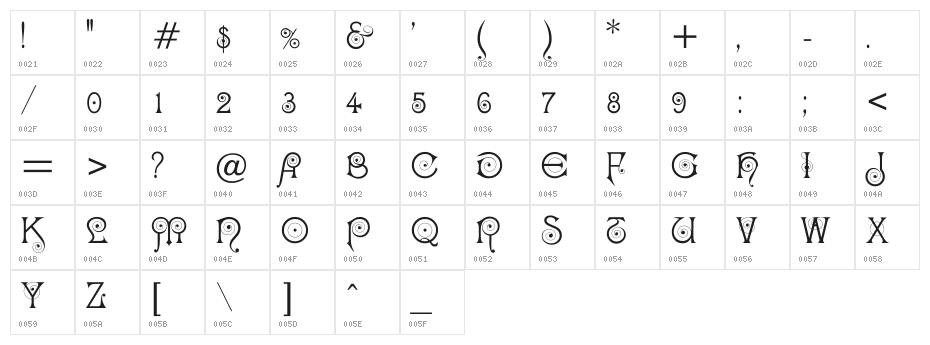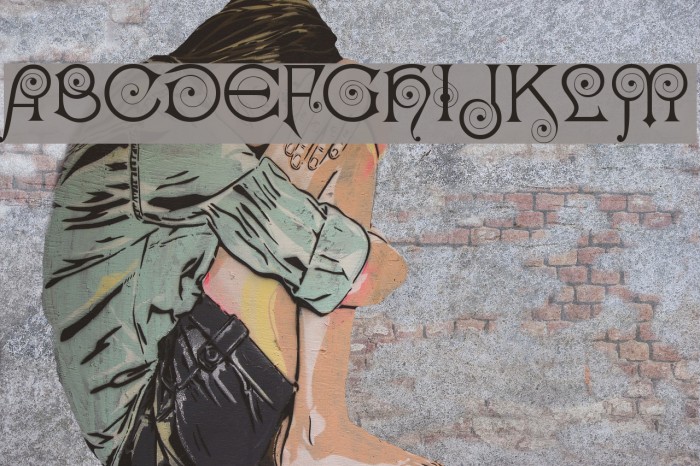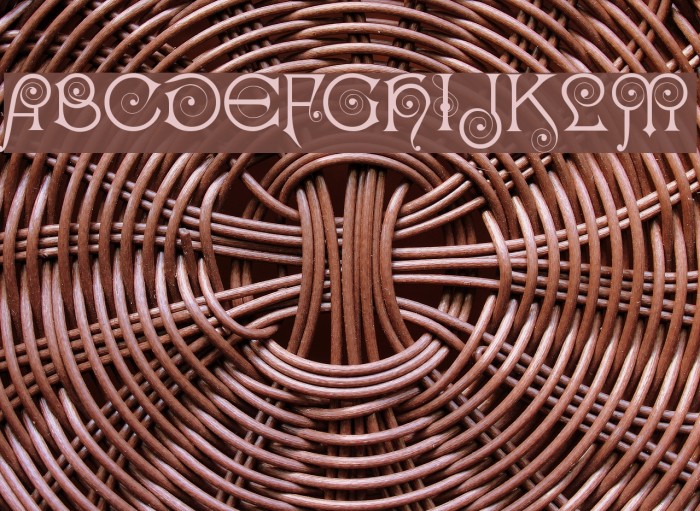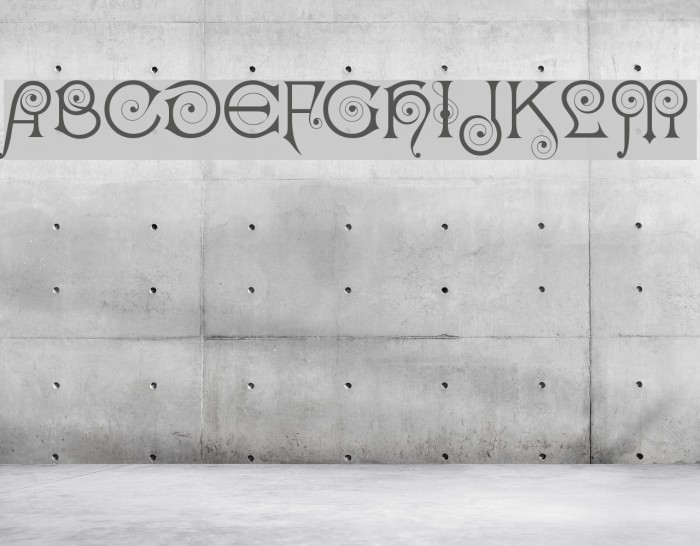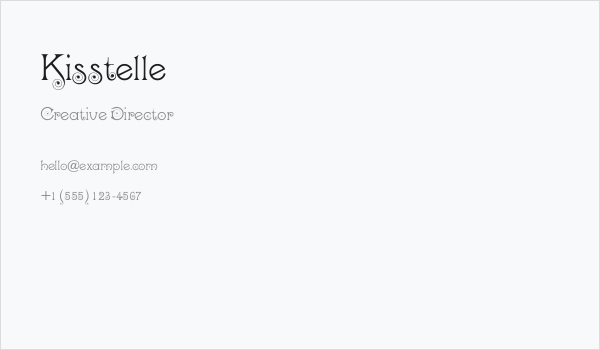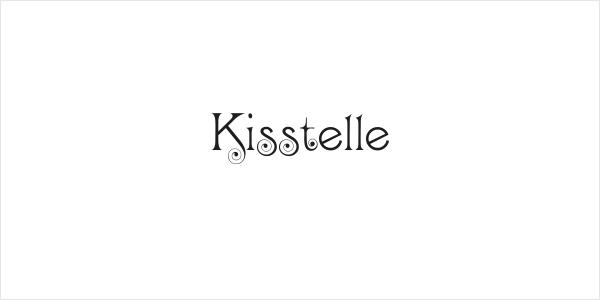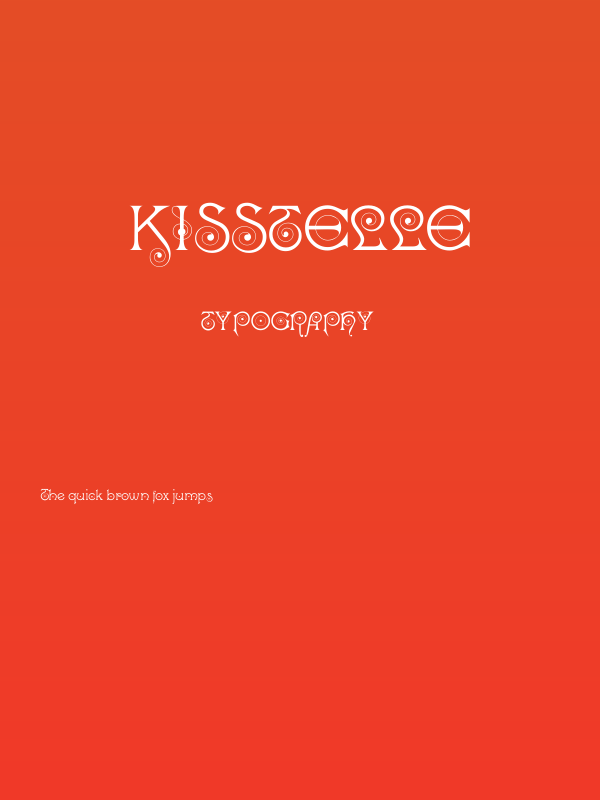
Kisstelle Font
Kisstelle Description
This font features an intricate and decorative style, characterized by its swirling and spiraling elements that give it a whimsical and artistic flair. The uppercase letters are particularly ornate, with embellishments that create a sense of movement and elegance. The lowercase letters maintain a similar decorative quality, though they are slightly more subdued, ensuring readability. The numerals and special characters continue the theme with unique and creative designs that complement the overall aesthetic. This font is perfect for projects that require a touch of fantasy or artistic expression.